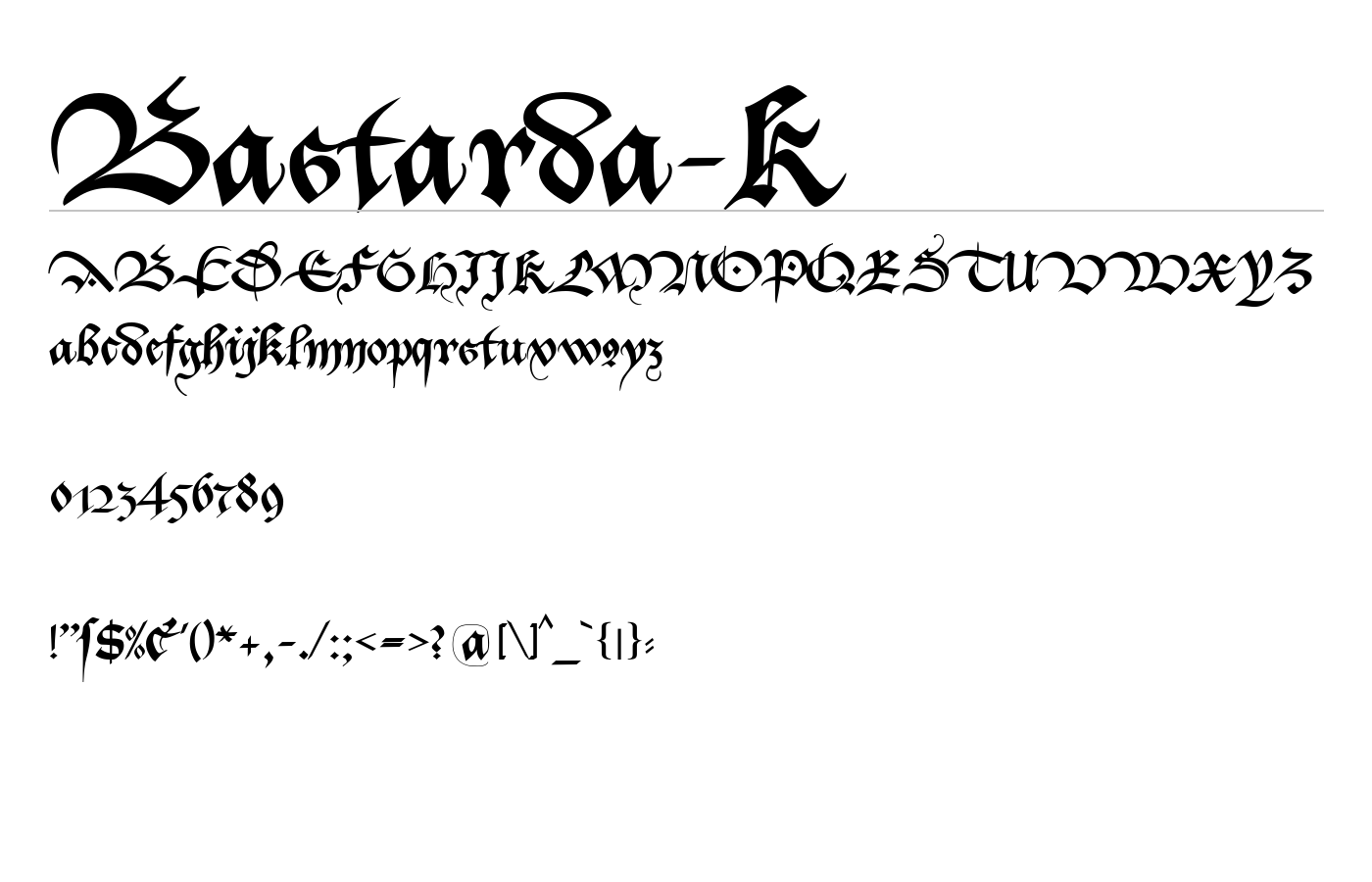
Bastarda-K is a blackletter serif font with a dramatic and historic feel, featuring sharp, angular strokes and ornate detailing that evoke medieval manuscripts. Its bold weight and high contrast between thick and thin lines give it a striking presence, making it ideal for projects that seek a gothic, vintage, or formal aesthetic. This font works best for decorative headlines, logos, or logos where an old-world, traditional style is desired.
Bastarda-K Font
About Bastarda-K Font